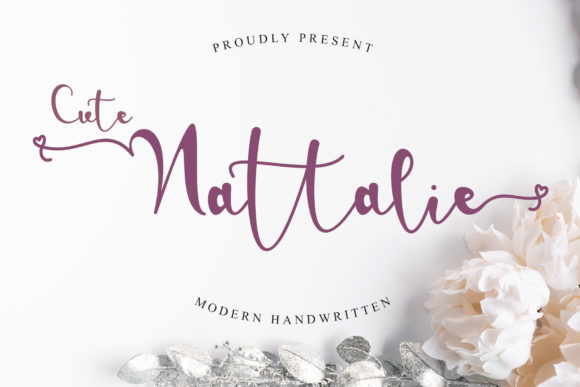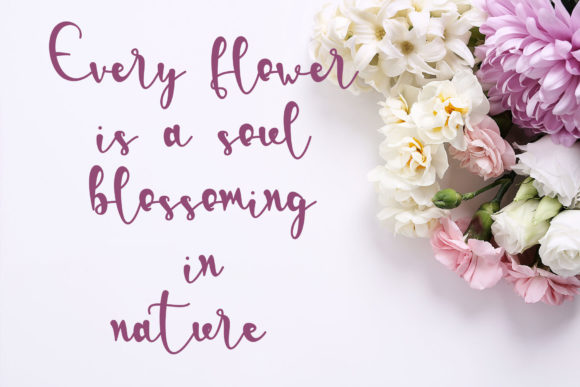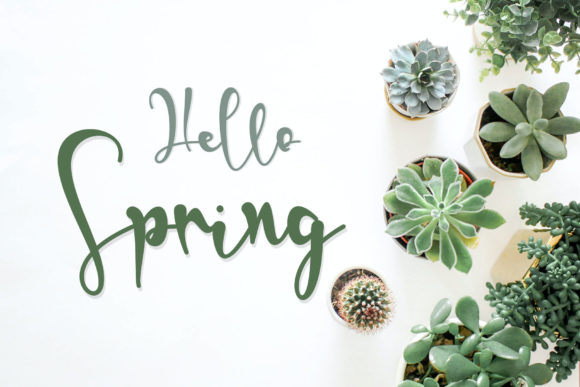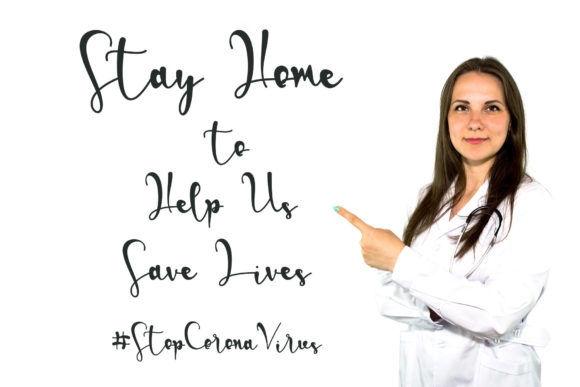
About Cute Nattalie Font
Cute Nattalie is a romantic and sweet calligraphy typeface with characters that dance along the baseline. It will add a luxury spark to any design project that you wish to create! This font is PUA encoded which means you can access all of the amazing glyphs and ligatures with ease!